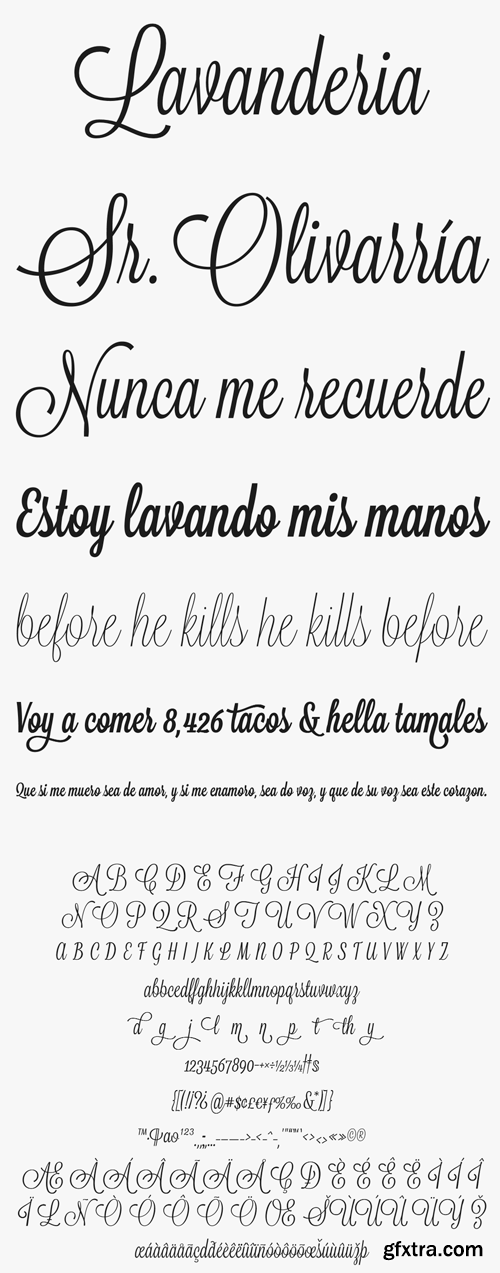
- Inspired by some lettering on a laundromat window in San Francisco’s Mission District, I set out to create Lavanderia, a casual script with some formal beauty. To stray away from the traditional “wedding invitation” style of script, I altered three fundamental traits: the slant, the x-height, and the width of the letters. By creating a typeface on only a slight slant, with a high x-height, and slightly condensed, the casual feeling of sign-painter lettering was achieved. Then by complementing the lowercase with a set of lavish caps, more formal elegance was brought to the set. OpenType was utilized to optionally add swashes, alter certain character, and take the capitals down to a more modest size and shape. Three weights. Delicate, Regular, and Sturdy. 291 glyphs.